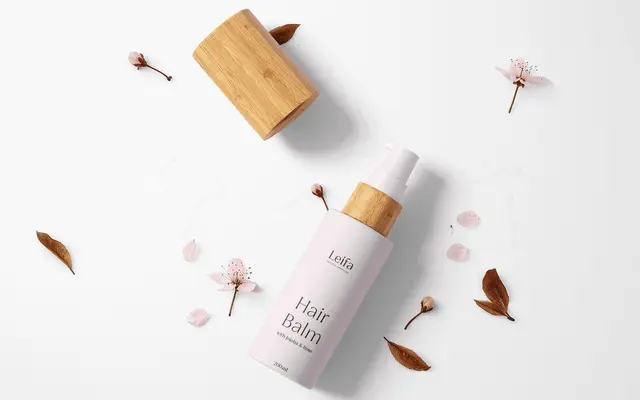
A flare-serif with higher-than-usual contrast that reads cleanly at text sizes and asserts itself at display scales, across eight weights with matching oblique italics.
Leifa sits between Didone drama and humanist approachability, using flattened serifs and deeply incised tapered spurs to soften what might otherwise be cold high-contrast forms. The family spans eight weights from Thin to Black, each with an optically corrected oblique italic, totalling 16 styles. Each style carries 883 glyphs, including small caps, old-style and tabular figures, fractions, case-sensitive forms and four stylistic sets for the a, f, g and punctuation.
Described explicitly as a flare-serif, Leifa sits between Didone high contrast and humanist warmth, with flattened serifs and tapered spurs rather than the strictly geometric bracketing of a Didone.